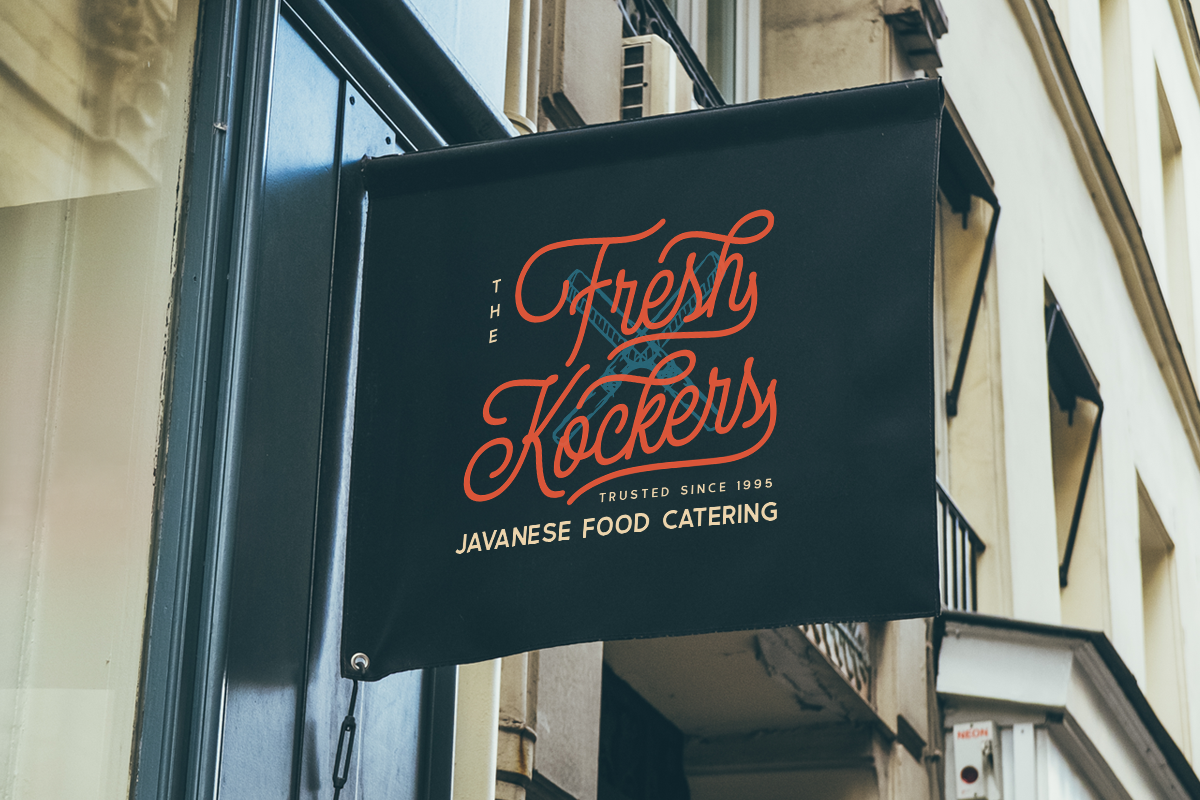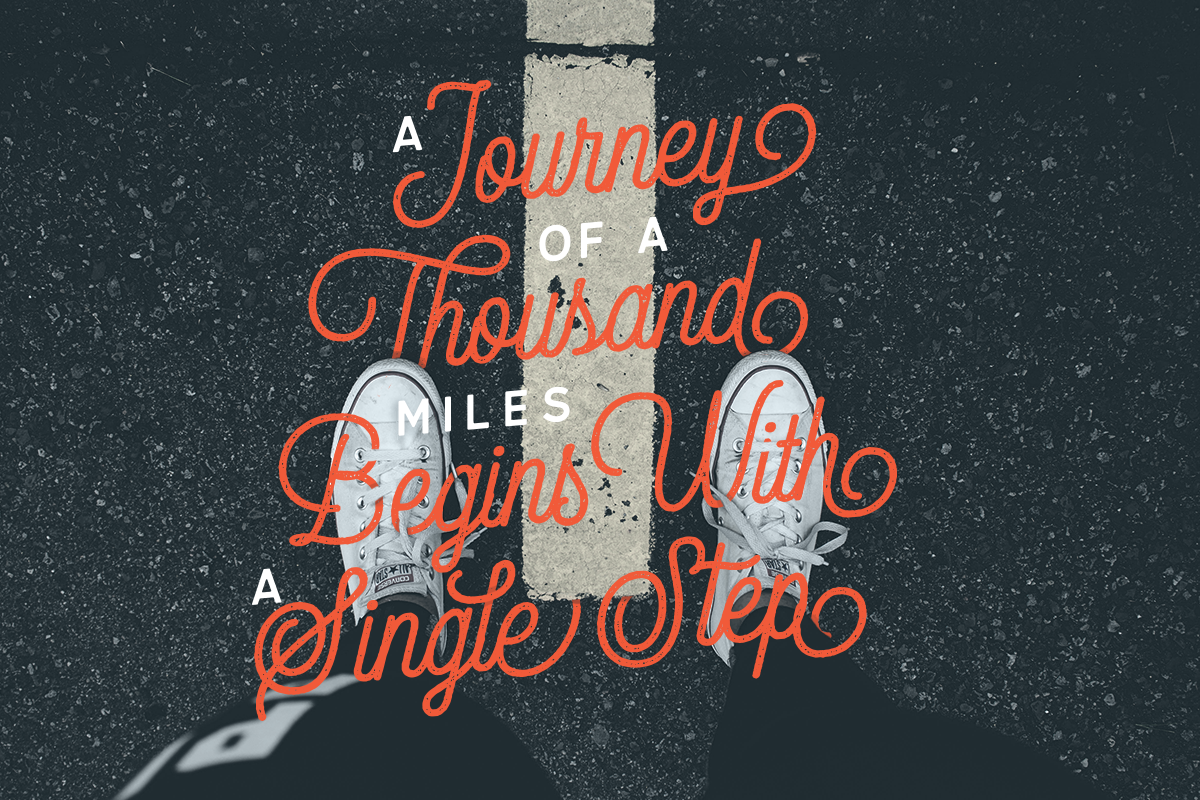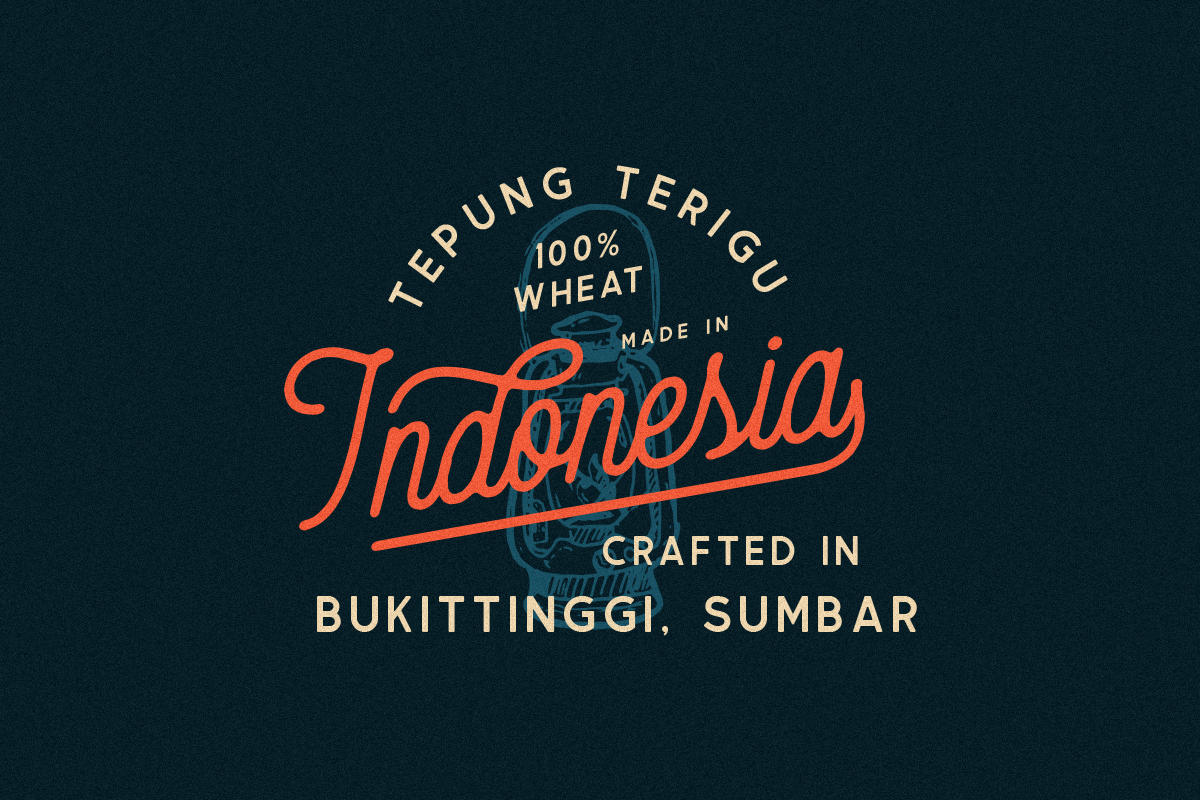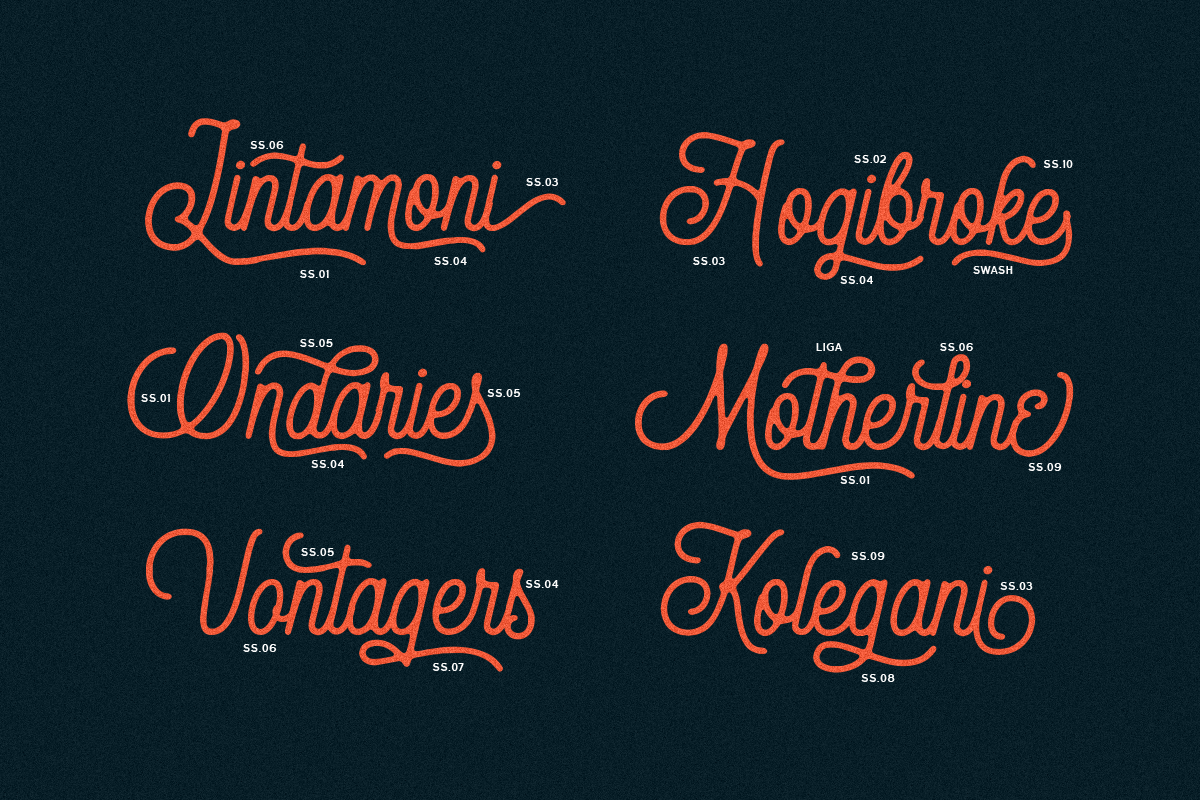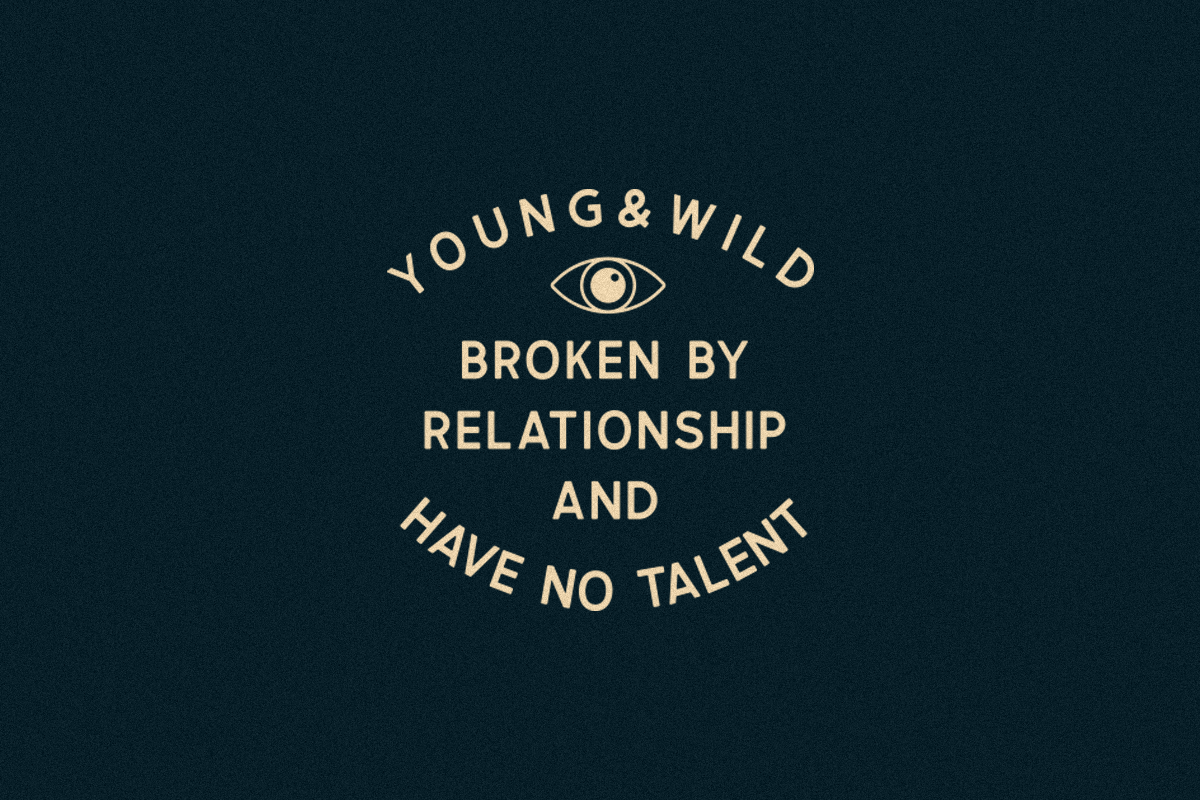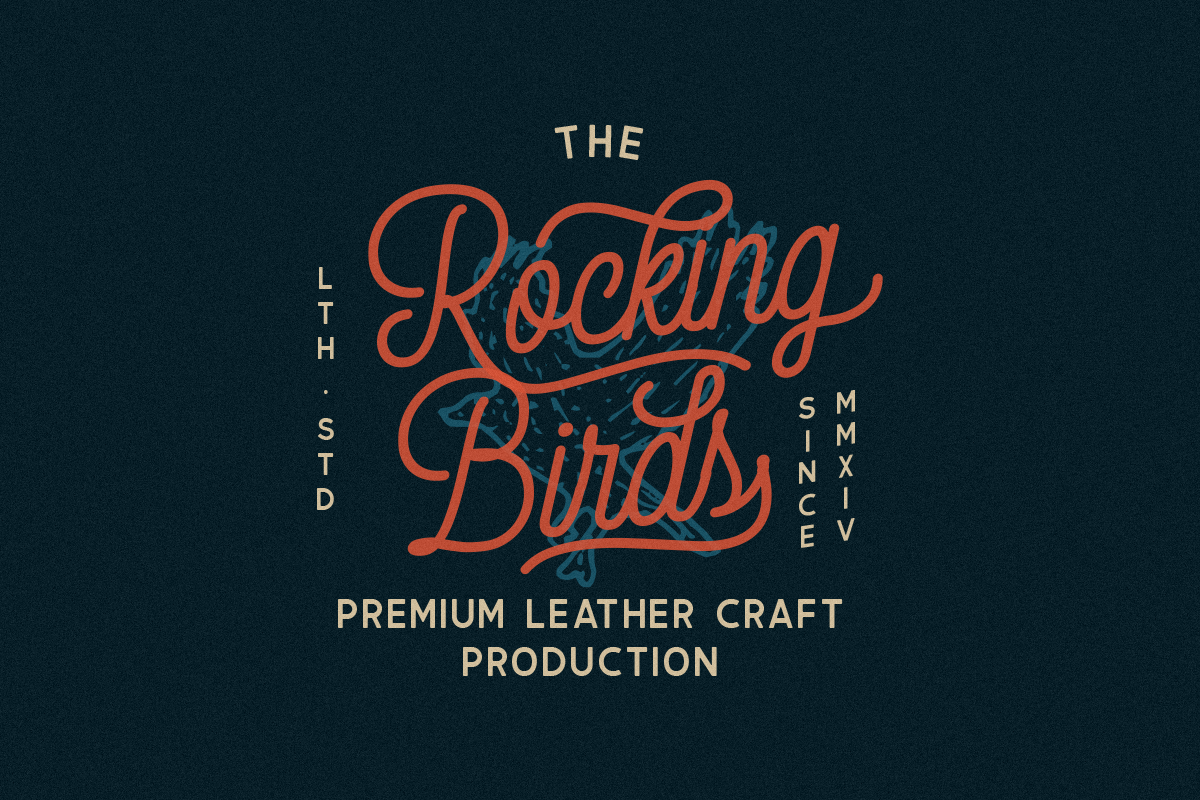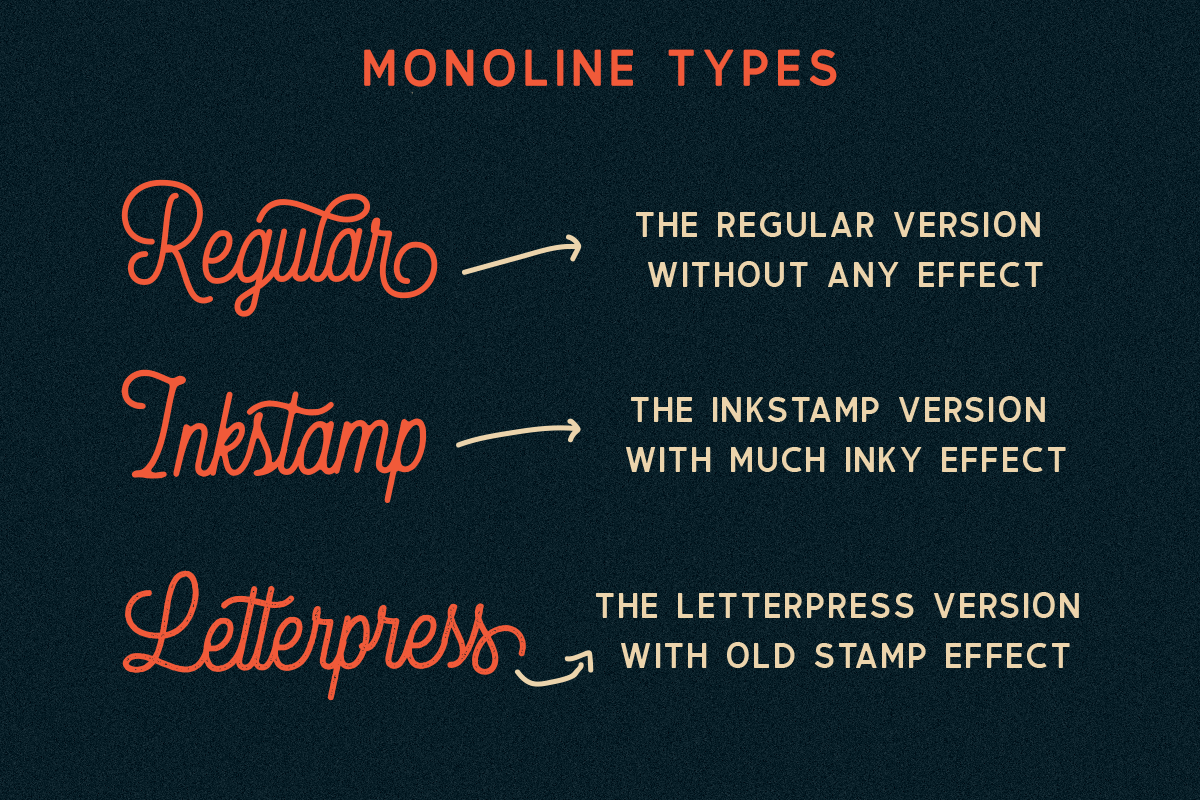
Thirdlone Font Duo & Vector Pack
Introducing, Thirdlone. A handmande typeface with monoline and sans. You can get a huge collection of hand drawn illustration in vector format which you can combine perfectly with the font. It consist of 100++ object in various theme such as adventure, nature, animal, beach, sea, holiday etc. This font is perfect to be used as tshirt design, logo / brand, signature, headline, lettering quotes, etc. It also comes in uppercase, lowercase, punctuations, symbols & numerals, stylistic set alternate, ligatures, etc also support multilingual.
- It also comes in uppercase, lowercase, punctuations, symbols & numerals, stylistic set alternate, ligatures, etc also support multilingual.
- Thirdlone Regular
- Thirdlone Ink
- Thirdlone Stamp